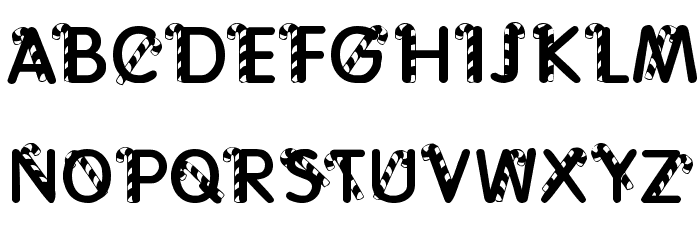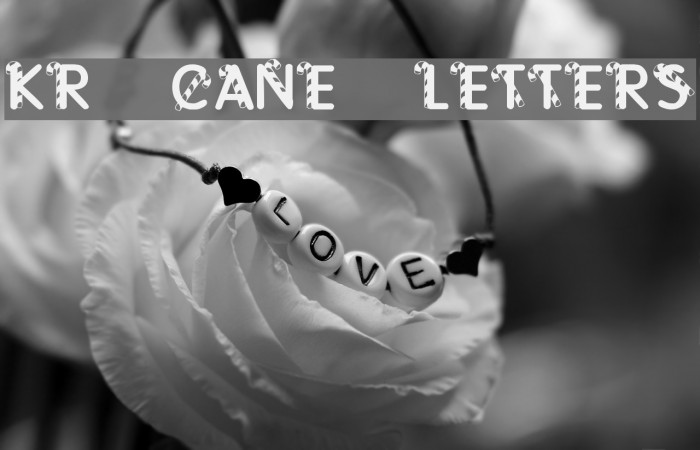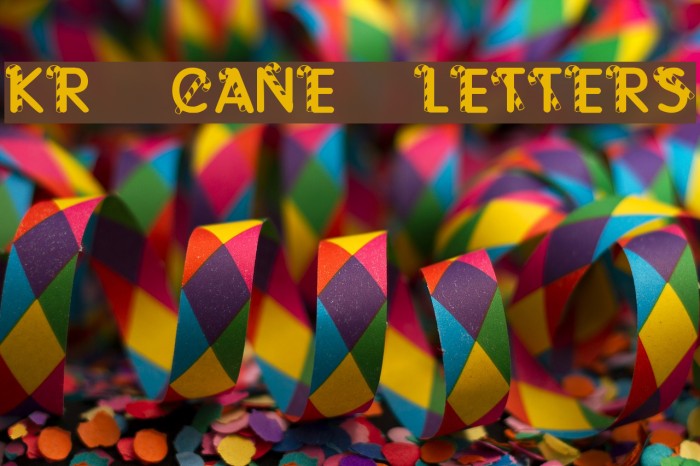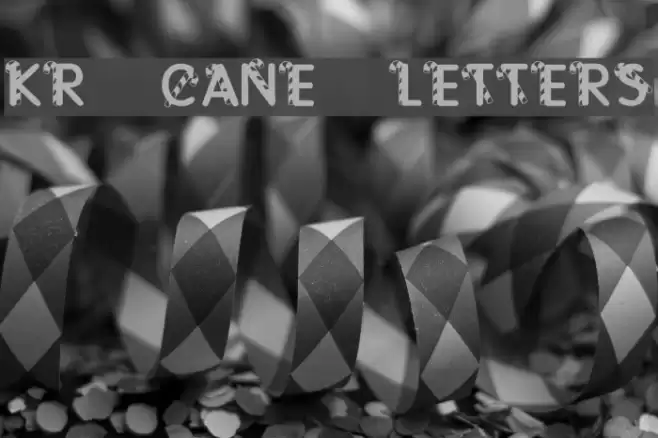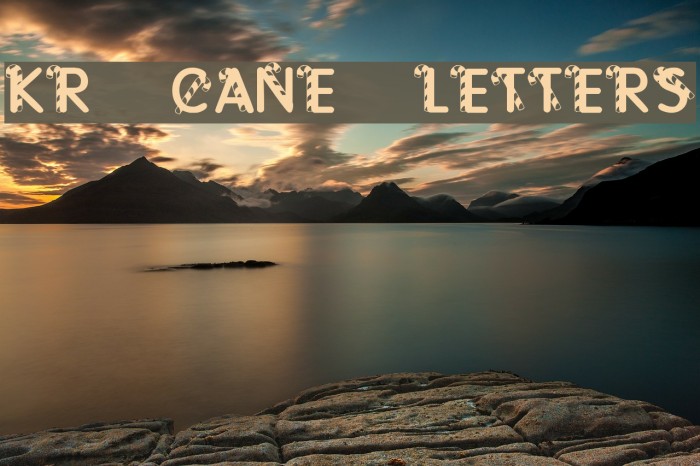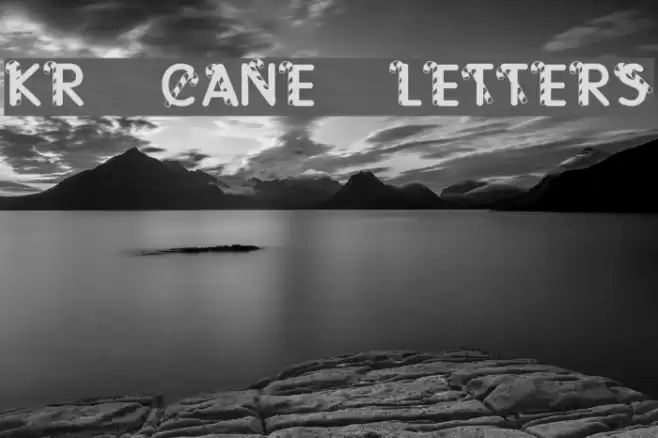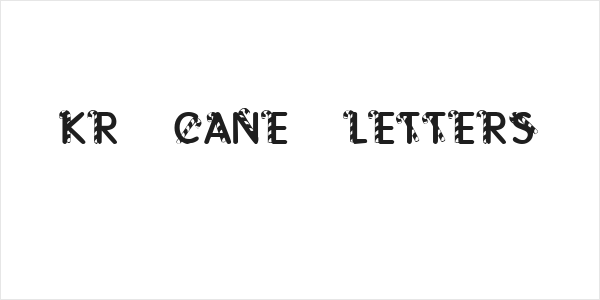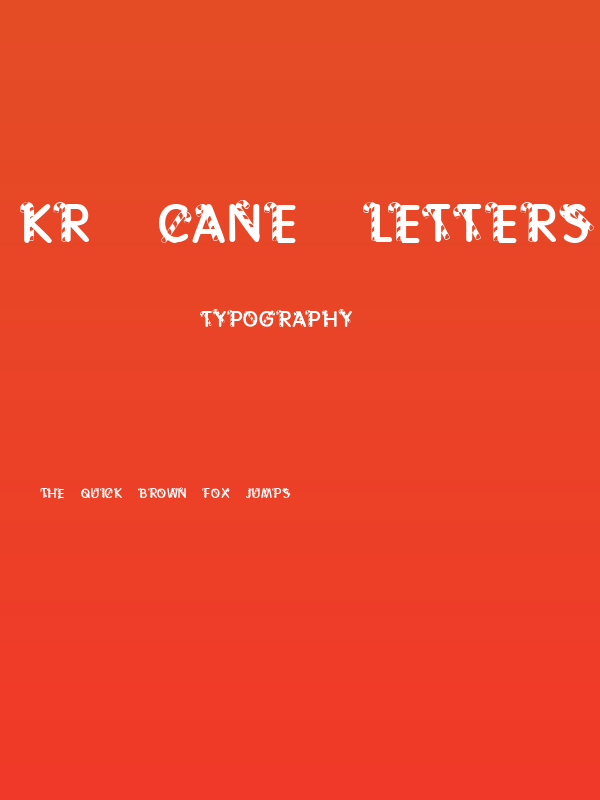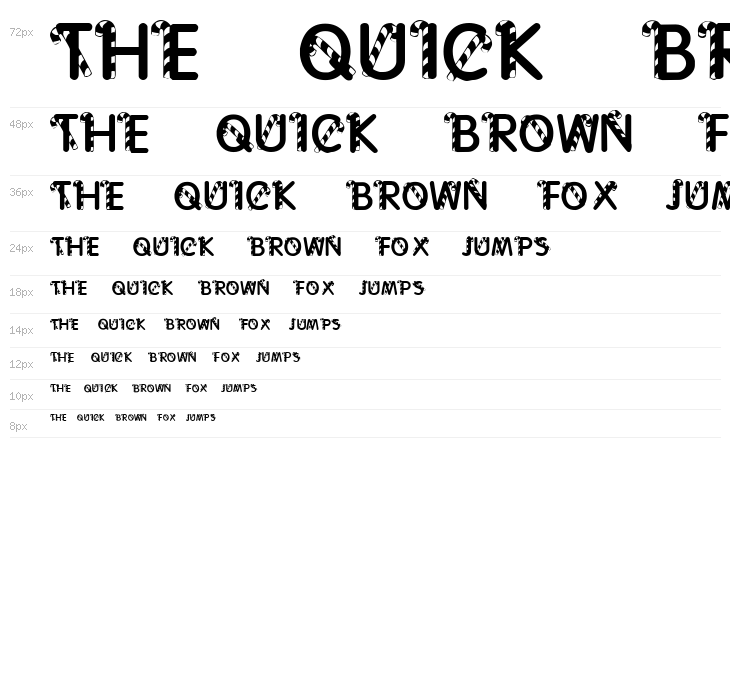
KR Cane Letters Font
KR Cane Letters Description
This font features a playful and decorative style, reminiscent of candy canes with its striped pattern and rounded edges. Each letter is adorned with alternating stripes, creating a festive and whimsical appearance. The design is bold and eye-catching, making it ideal for holiday-themed projects or any design that requires a touch of fun and creativity. The characters are evenly spaced, ensuring readability while maintaining their unique decorative flair. This font is perfect for capturing attention and adding a joyful element to any text.
| Proposed Projects | Ideal for holiday cards, festive banners, children's party invitations, and playful branding. |